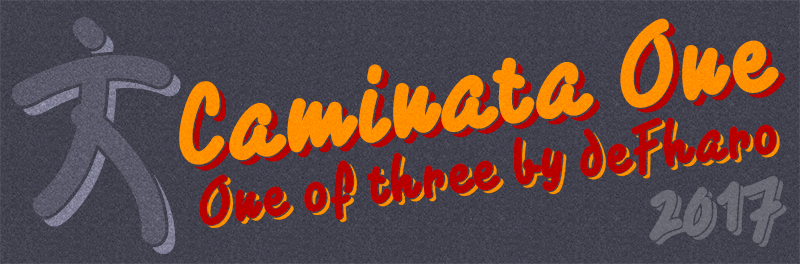
Font name: | Caminata One |
-Caminata One- is a handwritten typography, rounded, thick and shaded. Include Bitcoin symbol: b# (ligatures) The commercial version is formed by 3 combinable fonts to create multicolored titles. Thanks for download! ================ Free only for personal use ================ FULL VERSIONS + COMMERCIAL LICENSE: https://defharo.com/fonts/caminata-layered-script/ |